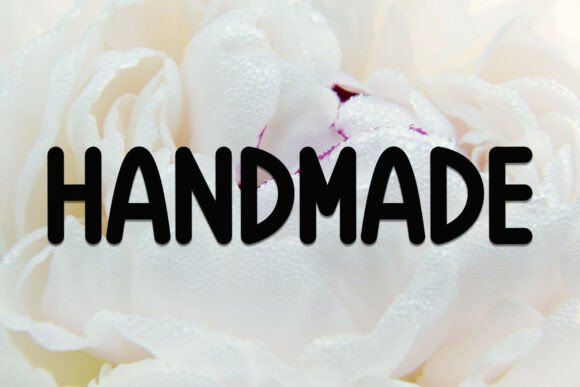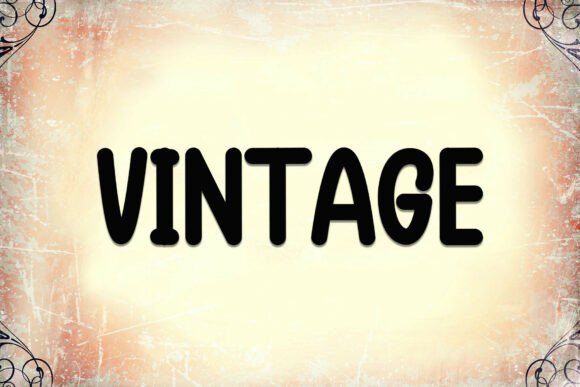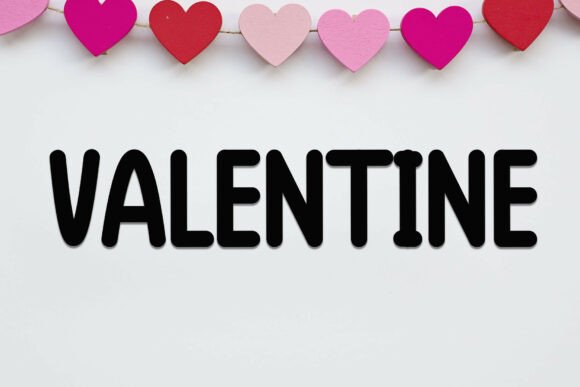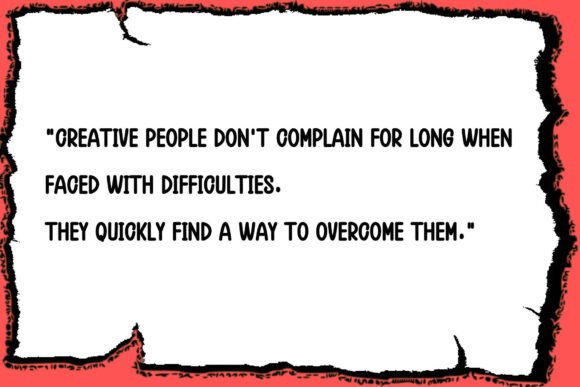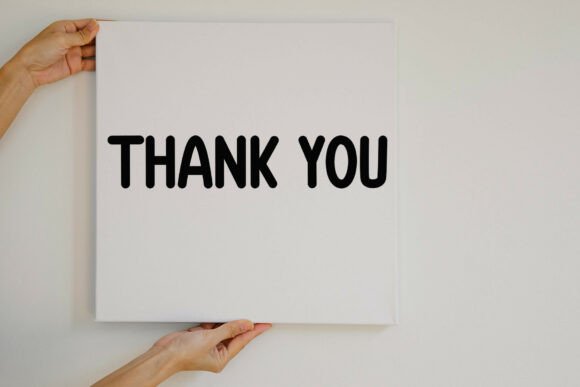
Introduction to Morningsunday Font
Morning Sunday — Cozy Rounded Display Morning Sunday font brings weekend warmth to every headline.
Chunky monoline strokes, soft rounded terminals , and upright condensed shapes give it instant pop, while a generous x-height and open counters keep thumbnails crisp A gentle bouncy baseline adds approachability; subtle width swing —slim stems beside fuller curves—creates a friendly rhythm that stacks beautifully in short titles and labels.
Key Features of Morningsunday Font